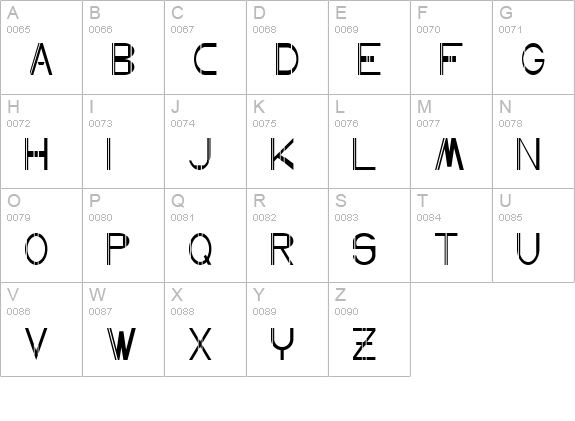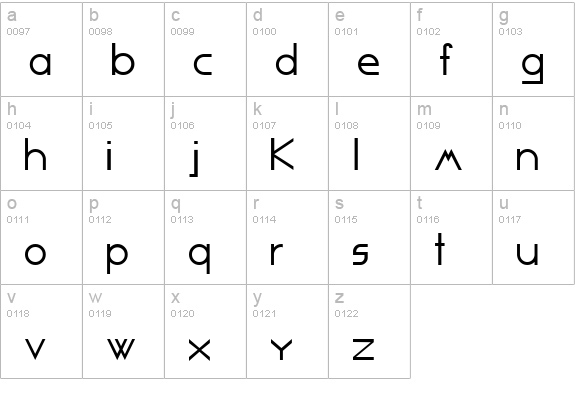
Competent Font Details
Competent font is not just any ordinary font; it is a font that exudes confidence and professionalism. With its sleek and clean design, Competent font is perfect for any project that requires a touch of sophistication. Its bold and distinct characters make it easily readable, ensuring that your message is conveyed with clarity and precision. But what sets Competent font apart from other fonts is that it is not only visually appealing but also free. Yes, you read that right - this remarkable font is freely available to download at FontsMarket.com. Now, you no longer have to worry about breaking the bank to access top-quality fonts. With Competent font, you can elevate your designs and make a lasting impression, all without spending a dime. Whether you are working on a corporate presentation, a magazine layout, or a website design, Competent font will effortlessly enhance your work. Its versatility allows it to adapt to various styles and themes, making it a reliable choice for designers of all levels. From headings and titles to body text and captions, Competent font will ensure that your typography stands out and captivates your audience. So why wait? Take advantage of this incredible opportunity and download Competent font for free at FontsMarket.com. Elevate your designs, express your creativity, and make a lasting impact with this exceptional font. Don't miss out on this chance to access a high-quality font without spending a penny. Get your hands on Competent font today and let your designs speak volumes.